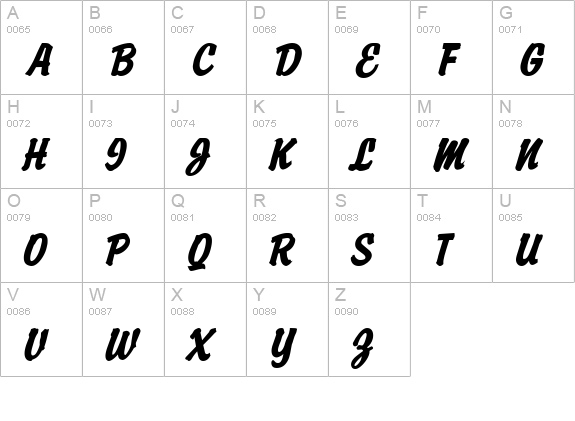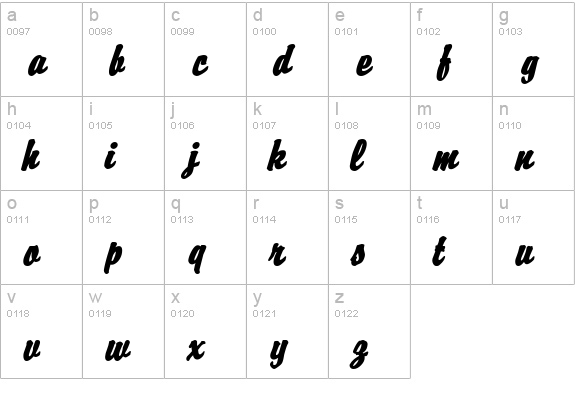
Brisk Extended BoldItalic is a distinctive, extended-width variant in the Brisk typeface family \xE2\x80\x94 well suited to design and typography projects.
Brisk Extended BoldItalic font is a dynamic and modern typeface that exudes confidence and sophistication. Its bold and italic design adds a touch of flair to any project, making it perfect for headlines, branding, and marketing materials. The sleek and stylish look of Brisk Extended BoldItalic font is sure to make a statement and capture attention. Best of all, Brisk Extended BoldItalic font is available for free download at FontsMarket.com. This means you can easily access this versatile and eye-catching font to enhance your designs without any cost. Don't miss out on the opportunity to elevate your projects with the striking Brisk Extended BoldItalic font – download it now and let your creativity shine!